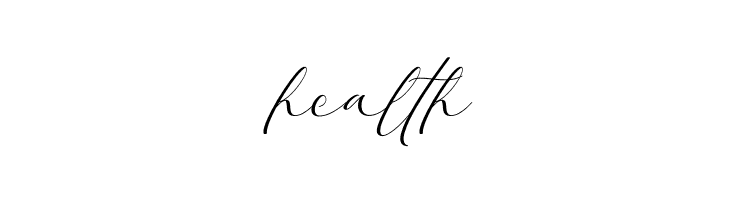
Goth Stencil 2 Font
A bold, gothic-inspired stencil font with sharp, angular lines and a medieval flair.
Romance Fatal Goth Premium Font
An ornate Gothic-inspired font with bold, angular lines and intricate flourishes.
Barchella_Drumal Font
A modern, elegant font with elongated letterforms and sharp edges.
PremiumDarkSoul Font
A bold, distressed font with a grunge-like, hand-drawn appearance.
A new Heard Premium - LJ-Design Studios Decorativa Font
An ornate and decorative font with floral embellishments.
PremiumLove Font
A playful handwritten font with irregular strokes and a casual style.
Premium Story Life Font
A hand-drawn, brush-style font with dynamic strokes and an artistic flair.
PremiumPuzzle Font
A playful, hand-drawn font with brush-like strokes and an artistic vibe.
Aini Sefia Font
Elegant, flowing script font with a handwritten style.
Romance Fatal Goth Premium Font
A dramatic Gothic font with intricate detailing and high contrast.
Zaitune Font
An elegant and flowing script font with interconnected letters and refined curves.